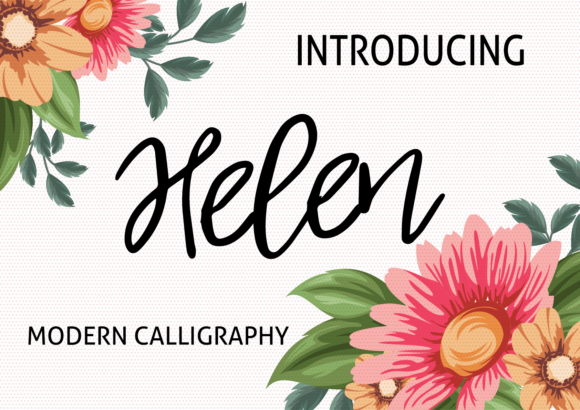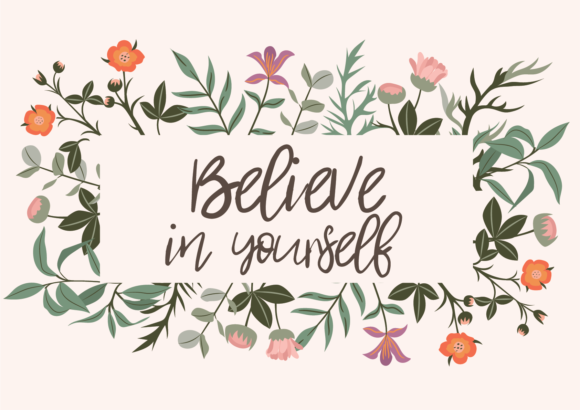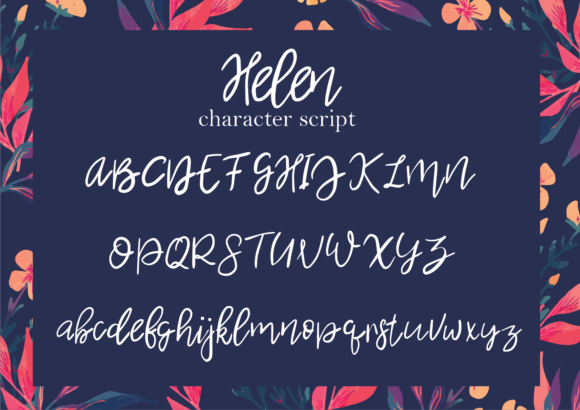
Helen Font
About Helen Font
Helen is a cute and casual handwritten font with an incredibly friendly feel. Use it to turn any crafting design project into a true piece of art!